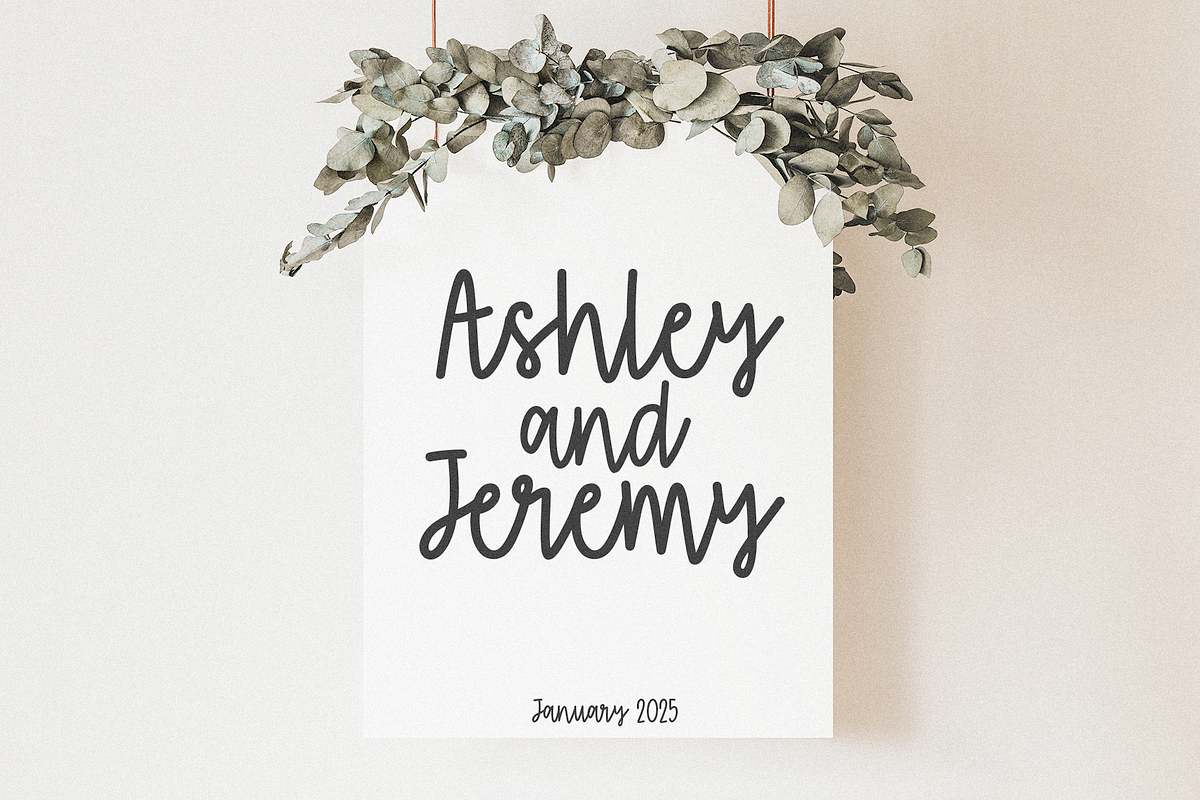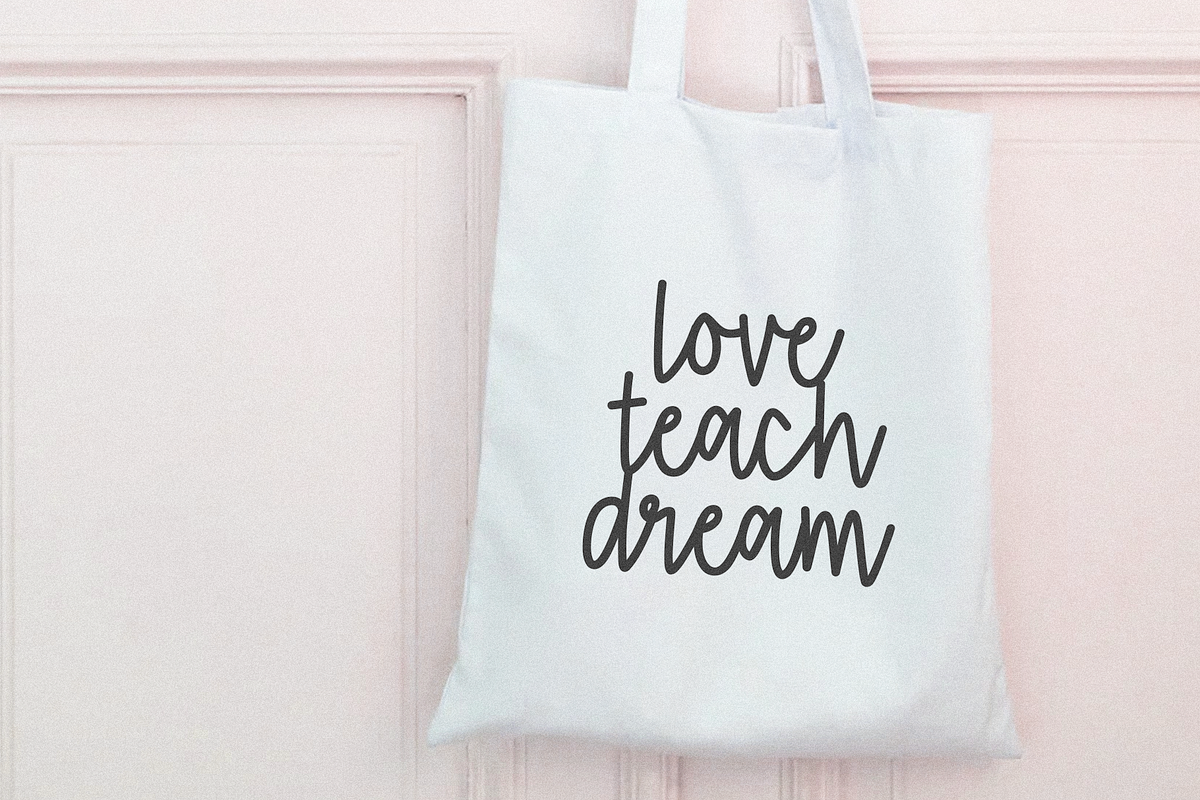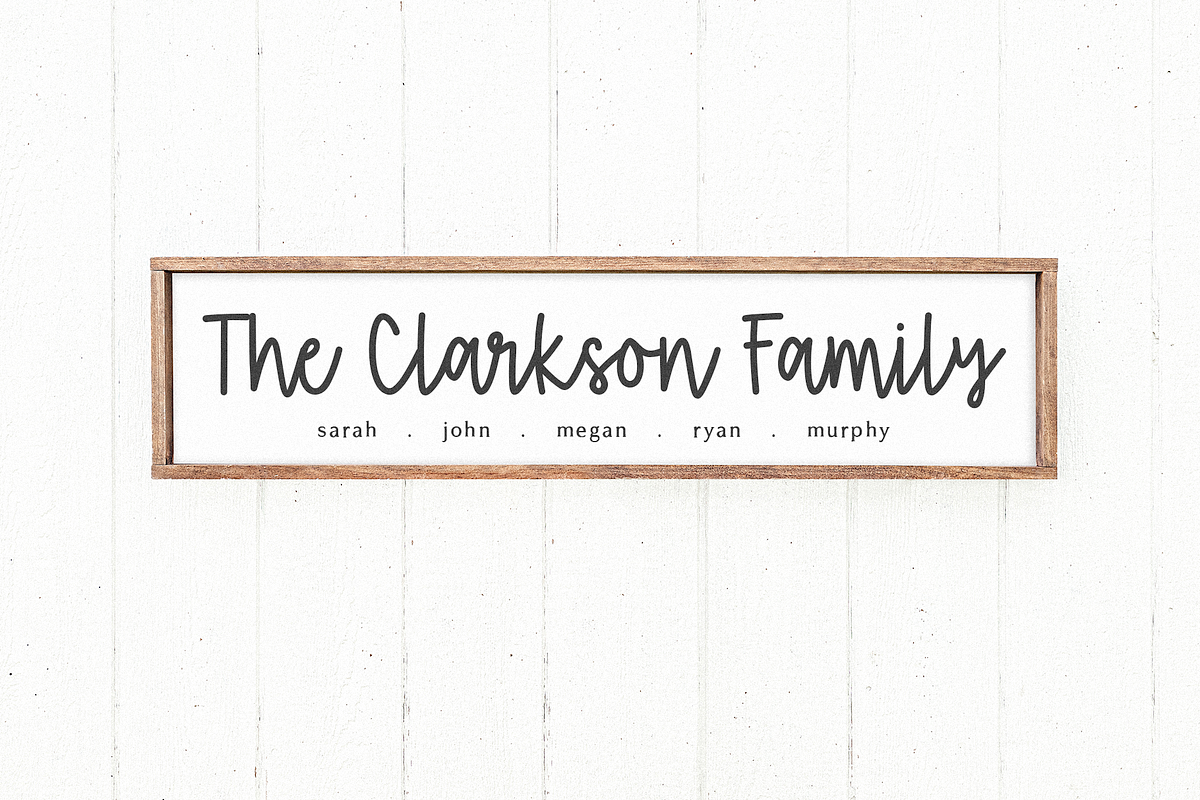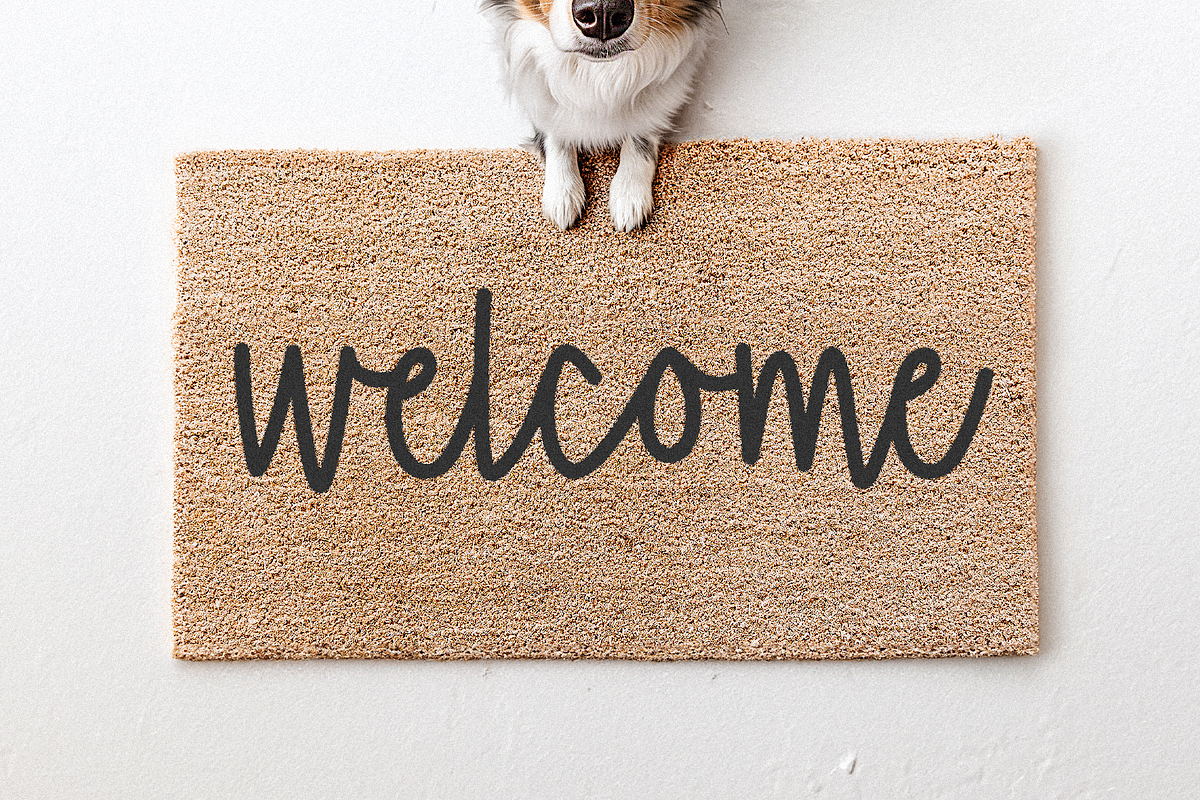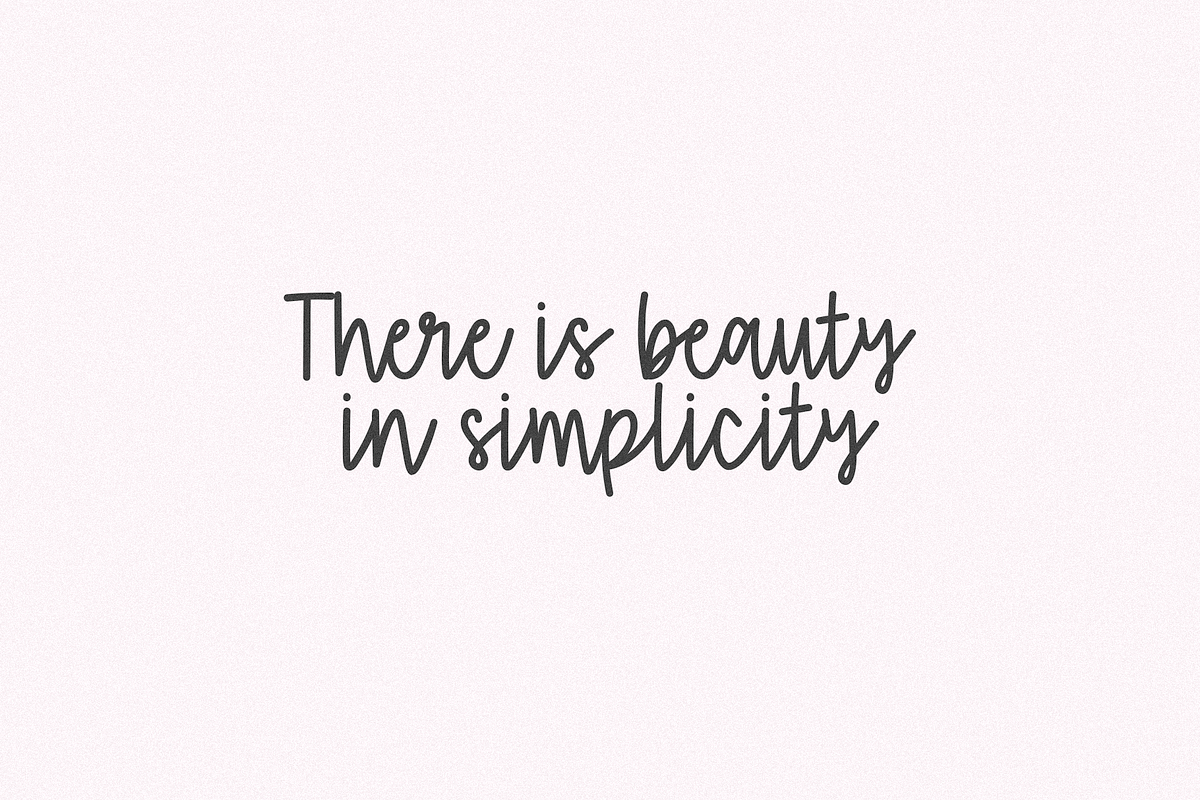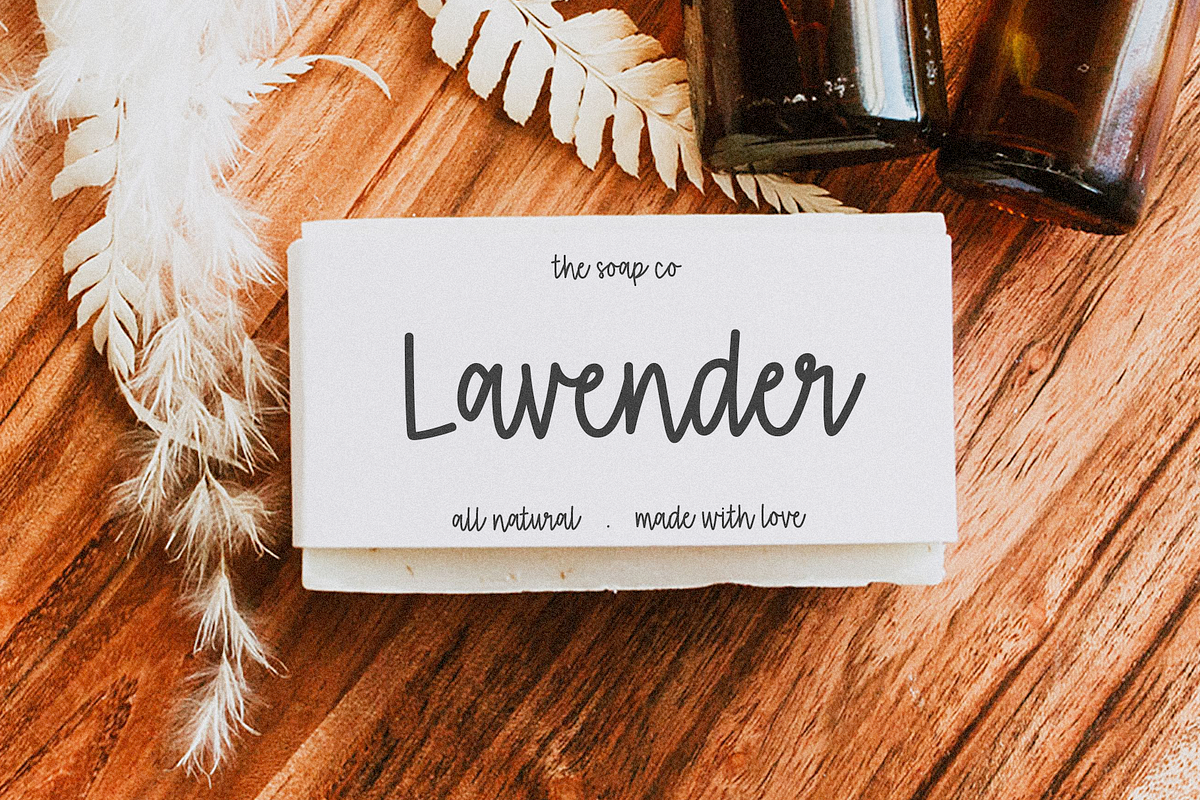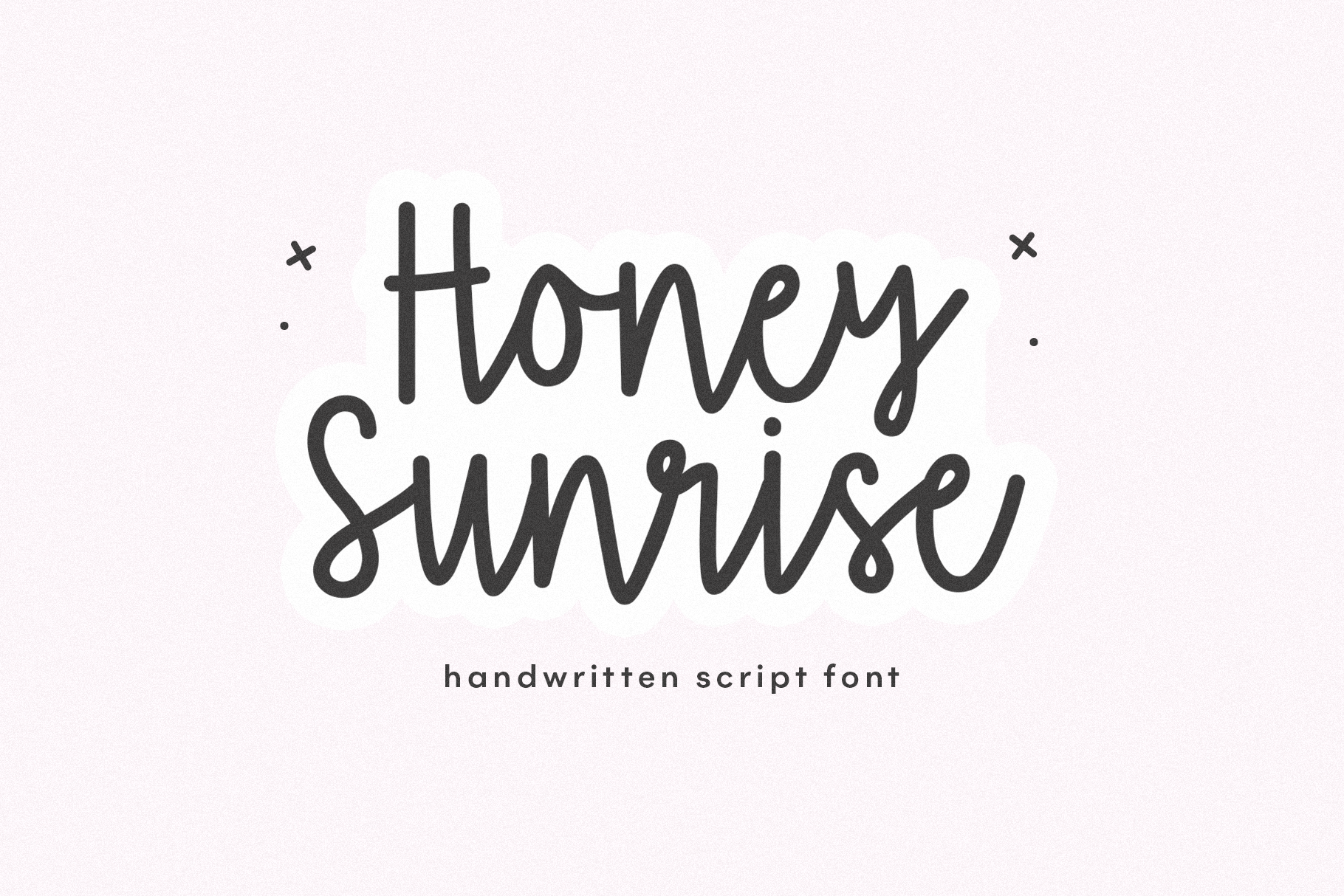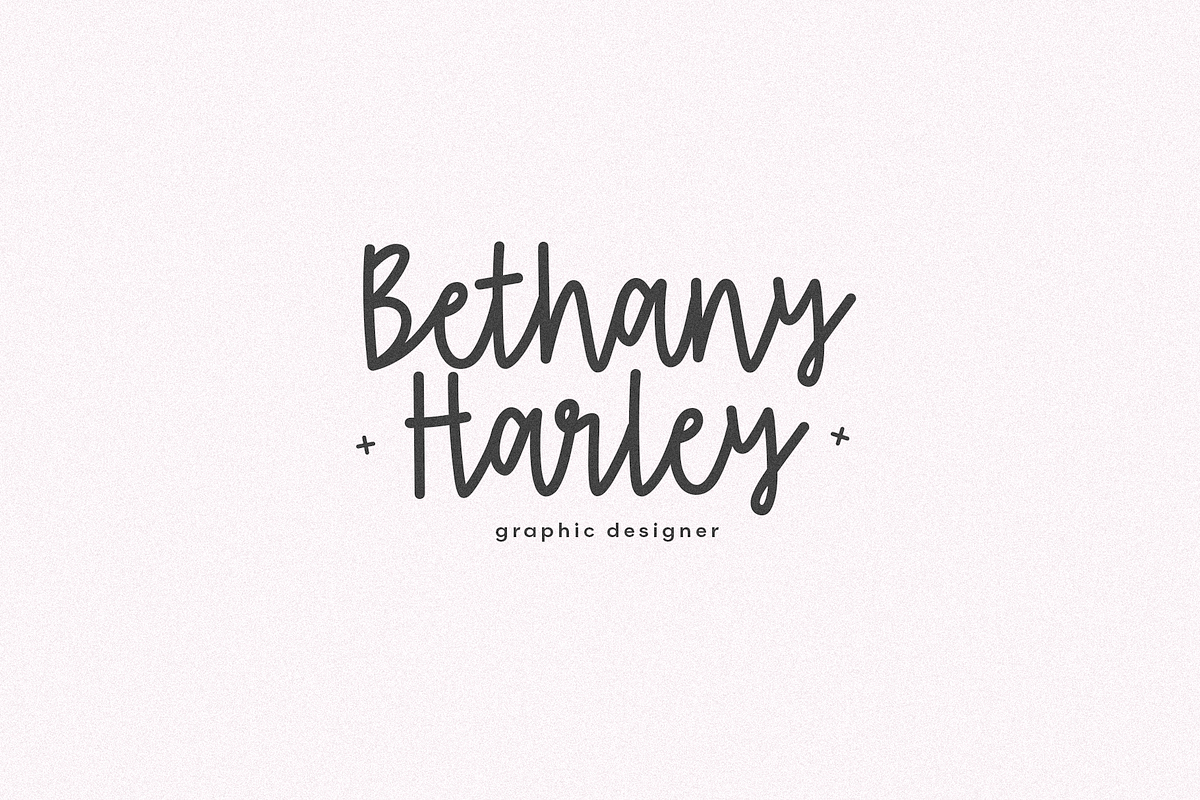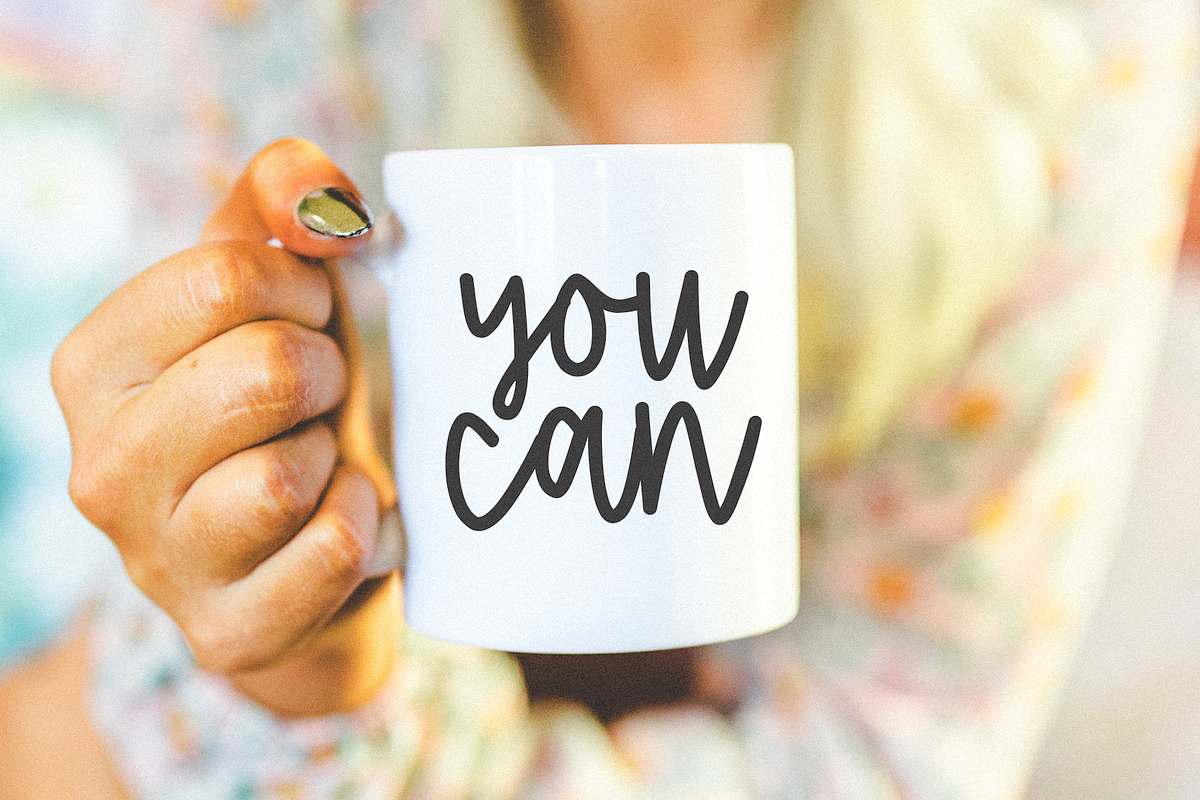
Honey Sunrise | Script Font
Honey Sunrise is a handwritten script font.
This font is perfect for logos, branding, wedding decor, farmhouse designs, cricut projects, svg files, stickers, mugs and more!